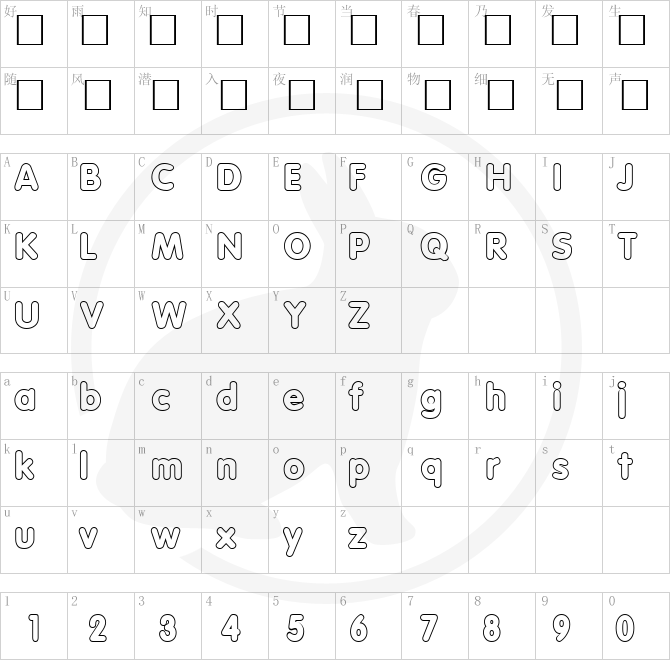
- Font Name:Vagabond Heavy Outline
- Full Name:Vagabond Heavy Outline
Vagabond-Heavy-Outline.ttf is a very beautiful artistic font, Vagabond-Heavy-Outline.ttf is widely used in the design and printing of various books and pictures,Vagabond-Heavy-Outline.ttf has a strong visual impact,Vagabond-Heavy-Outline.ttf is a commonly used font in newspapers, magazines and books, and is used in posters, e-commerce Poster design, store design, logo design, font design and other fields.Vagabond-Heavy-Outline.